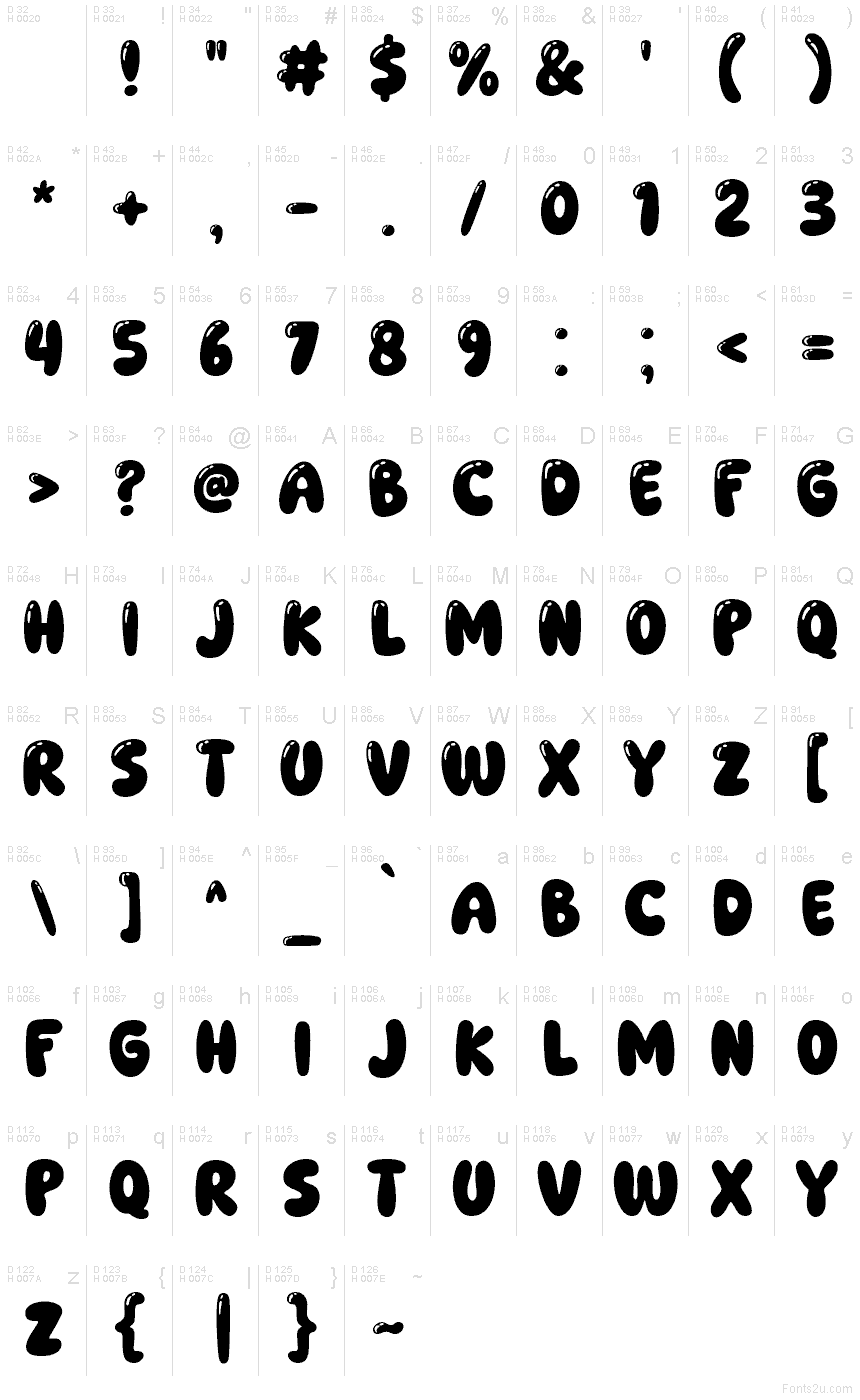
Super Kindly
Super Kindly font by fsuarez913 is a cartoon-style display font characterized by its chunky and bold appearance. Its soft, retro-inspired feel gives off a welcoming and approachable impression, perfect for projects that require a casual touch.
This free display font would naturally integrate in any playful-friendly platform including magazines, book titles, children’s books, cartoon movie posters, T-shirt designs, logo designs among others.